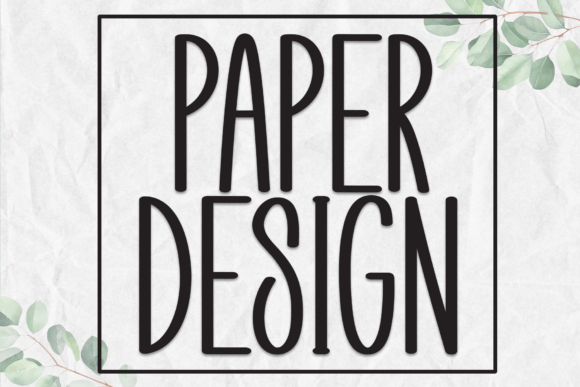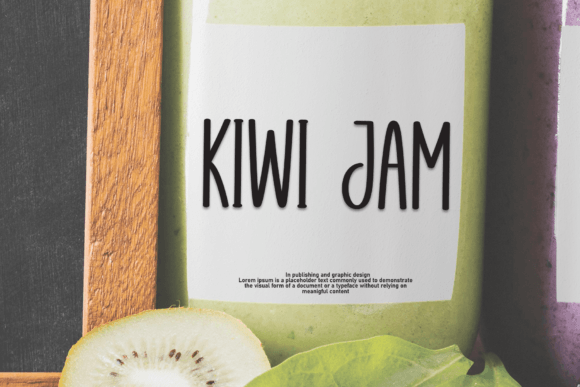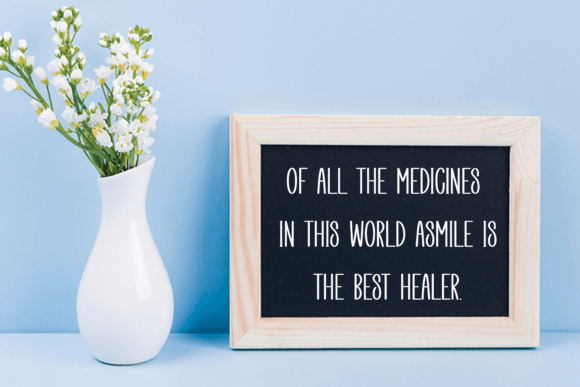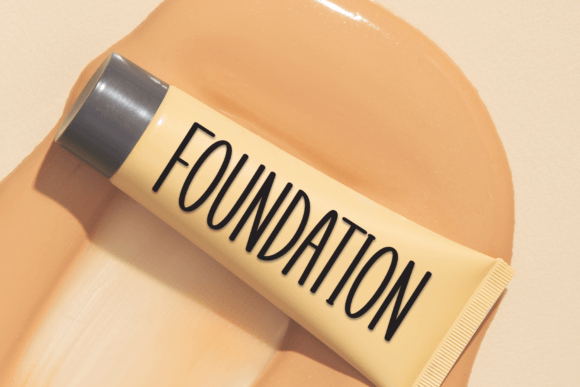
Paper Design Font
About the Paper Design Font
The wait is over! The incredible Paper Design Font is now available for your design toolkit. “Paper Design” is a tall, eye-catching font that stands out with its height. The letters are sleek and slender, making it perfect for creating bold headlines or unique titles. This font gives a modern and stylish look to any design project.
Its tall, slender letterforms make “Paper Design” ideal for headlines, short impactful titles, and branding applications where a modern, sophisticated aesthetic is desired. It excels in posters, logos, and packaging design, particularly for products targeting a younger, fashion-conscious demographic.
However, its limited x-height and narrow letter spacing render it unsuitable for body text or long paragraphs. Avoid using it in user interfaces (UI) or situations requiring high readability.
Pairing “Paper Design” with a clean sans-serif like Open Sans or Lato for body text creates a strong visual hierarchy. For a more elegant feel, consider pairing it with a classic serif like Garamond or a subtle script font like Great Vibes, depending on the desired level of formality. The overall personality is bold, modern, and stylish.
Paper Design Font Usage Examples
Paper Design Font Example